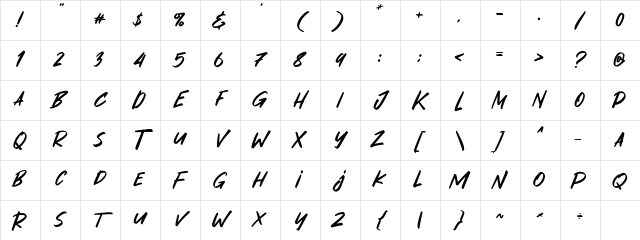
Masker Area Regular Free Font
Masker Area Regular
Foundry: Khurasan
Designer: Khurasan
Design Context for Masker Area
Masker Area is a composed and adaptable typeface that performs quietly and consistently across a wide range of design contexts.